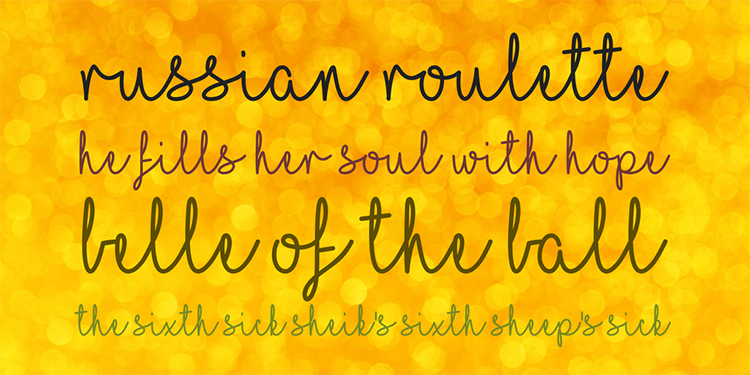
I Love Glitter
I Love Glitter font is a beautiful free handwritten script font to give a personal touch to your design. It is suitable for wedding invitations, greeting cards, scrapbooks, etc.